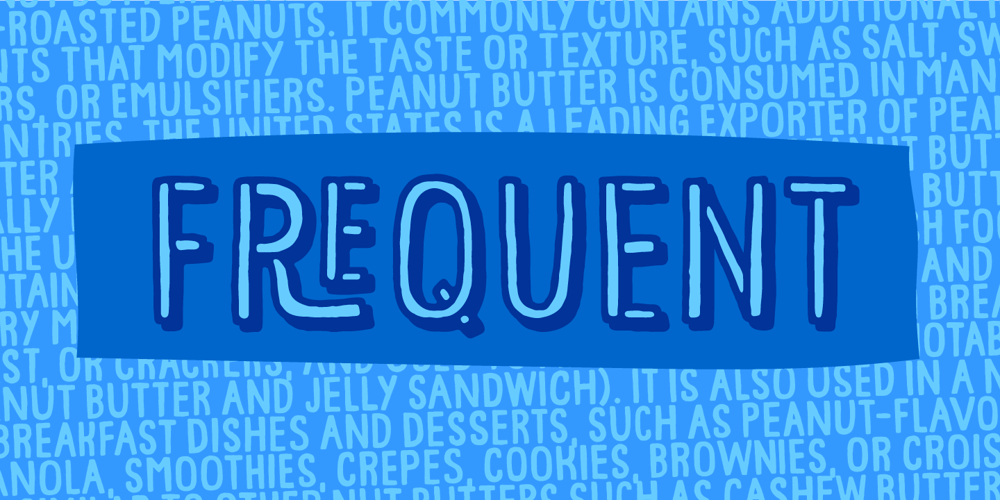
Frequent Font Family was designed by Jakob Fischer and published by PizzaDude.dk. Frequent contains 3 styles and family package options. This font was originally meant to be my last creation of 2022, but as it turned out, it was the first font of 2023 instead!Why? Well, because it took me a lot of time to complete the 150 different swahes letter combinations, the 182 different letters (not counting numbers, accented characters etc) the small caps, the subscript and the multilingual support!Anyway, it was worth the work – the Frequent font works great as a display font, or whatever you have in mind. Play around with the different versions (Regular, Solid and Inside) for great results.